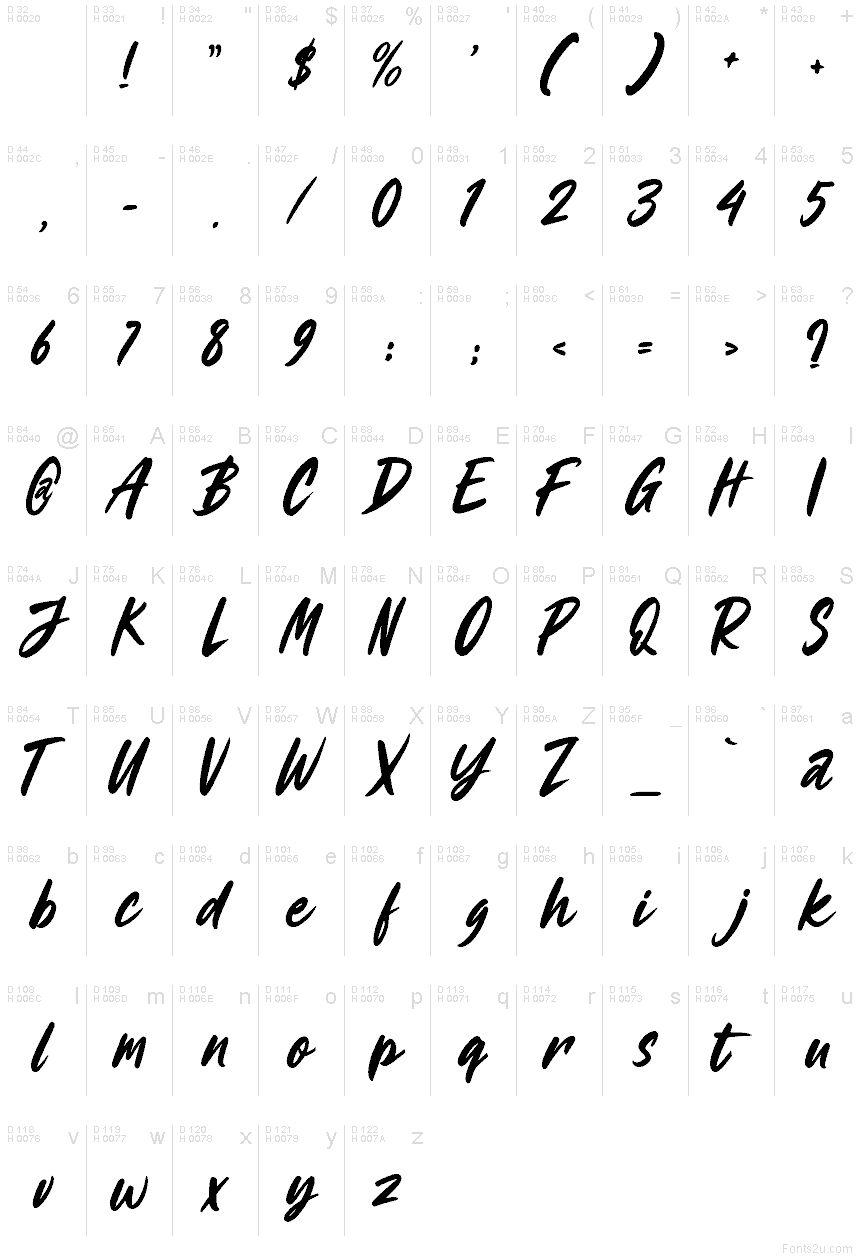
Garden of Fireflies
Garden of Fireflies font by BlackFridayFont FMF is a free handwritten typeface. Its inky, dry-brush strokes leave soft frayed edges that glow like little trails—lively, slanted, and confident without turning messy. The rhythm feels spontaneous yet stays readable, so headlines and short lines snap with energy while still landing clean.
Using Garden of Fireflies, you’ll get a natural fit for packaging, cafe or bakery branding, greeting cards, social quotes, event posters, product labels, and merch. The slightly condensed flow helps pack punchy phrases into tight spaces, and the textured weight holds up on screen and print. Pair this free font with a neat sans for details, and give it generous size to let the brush grain shine.